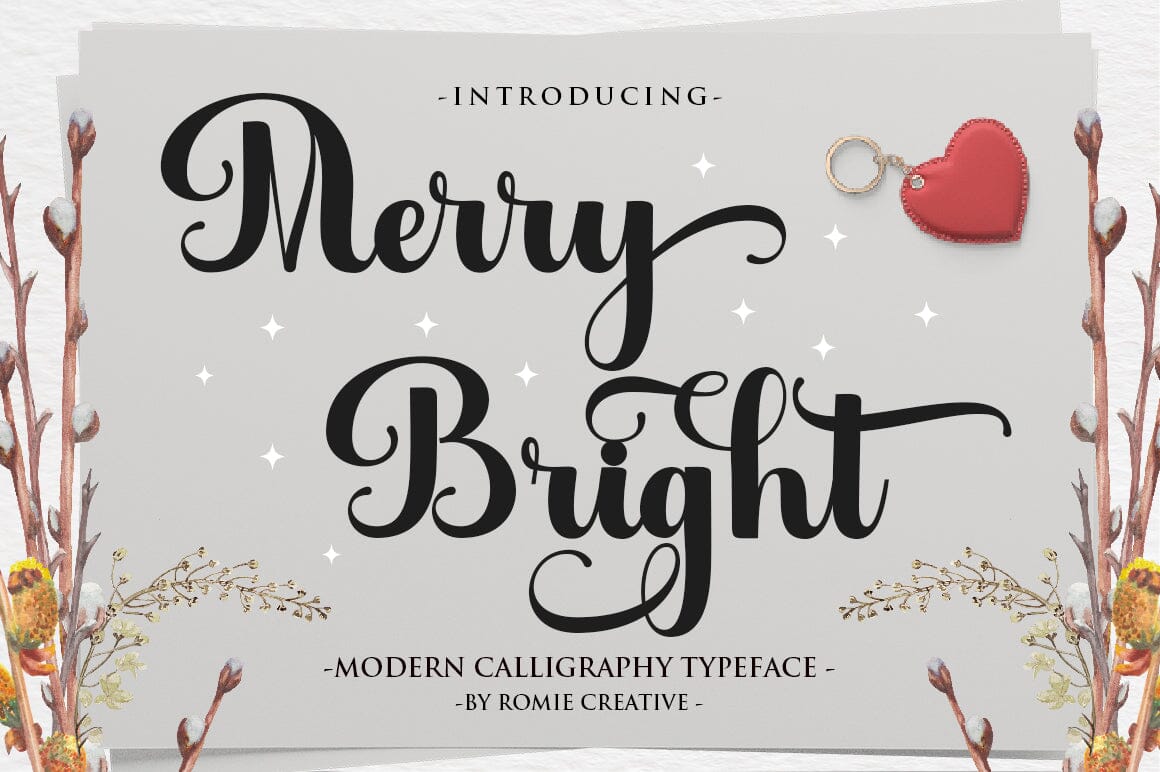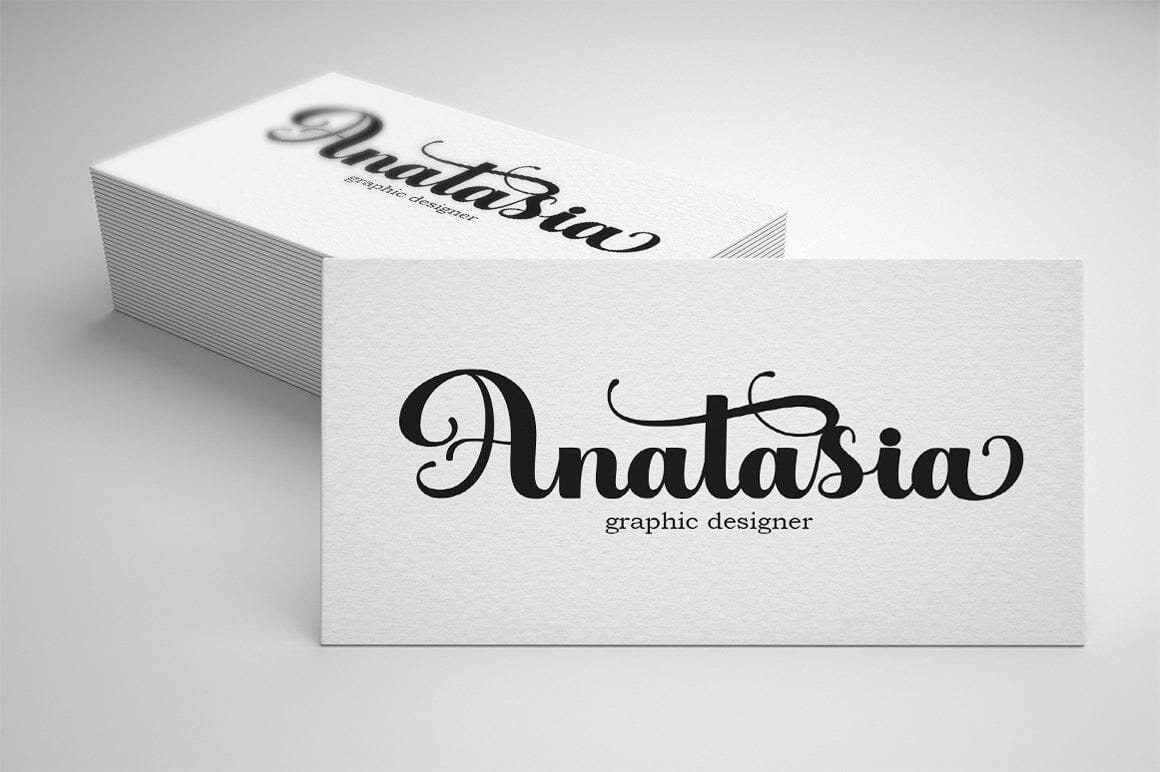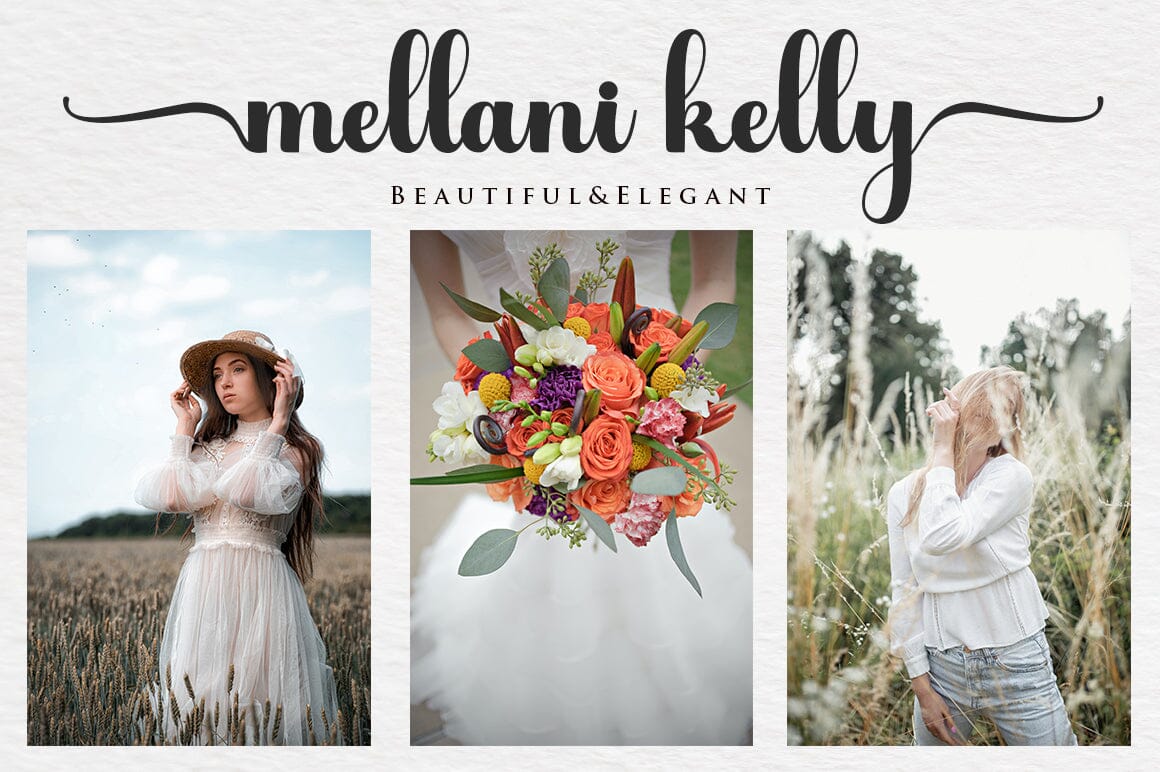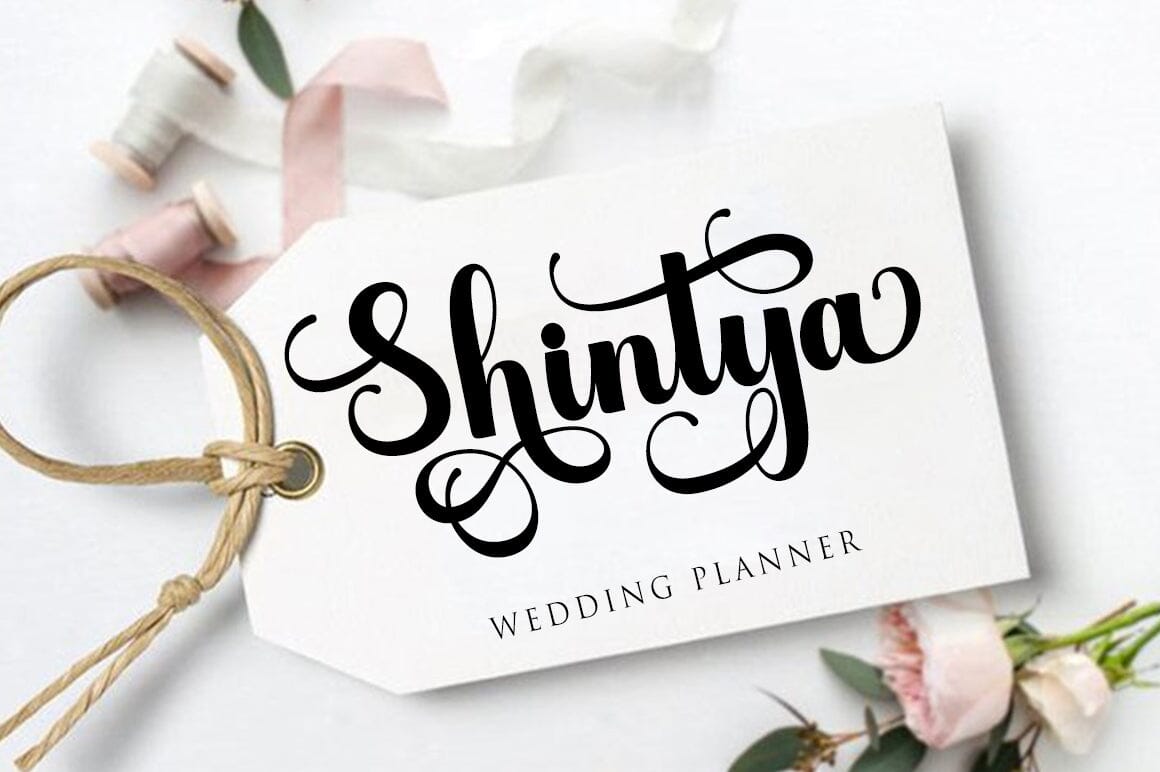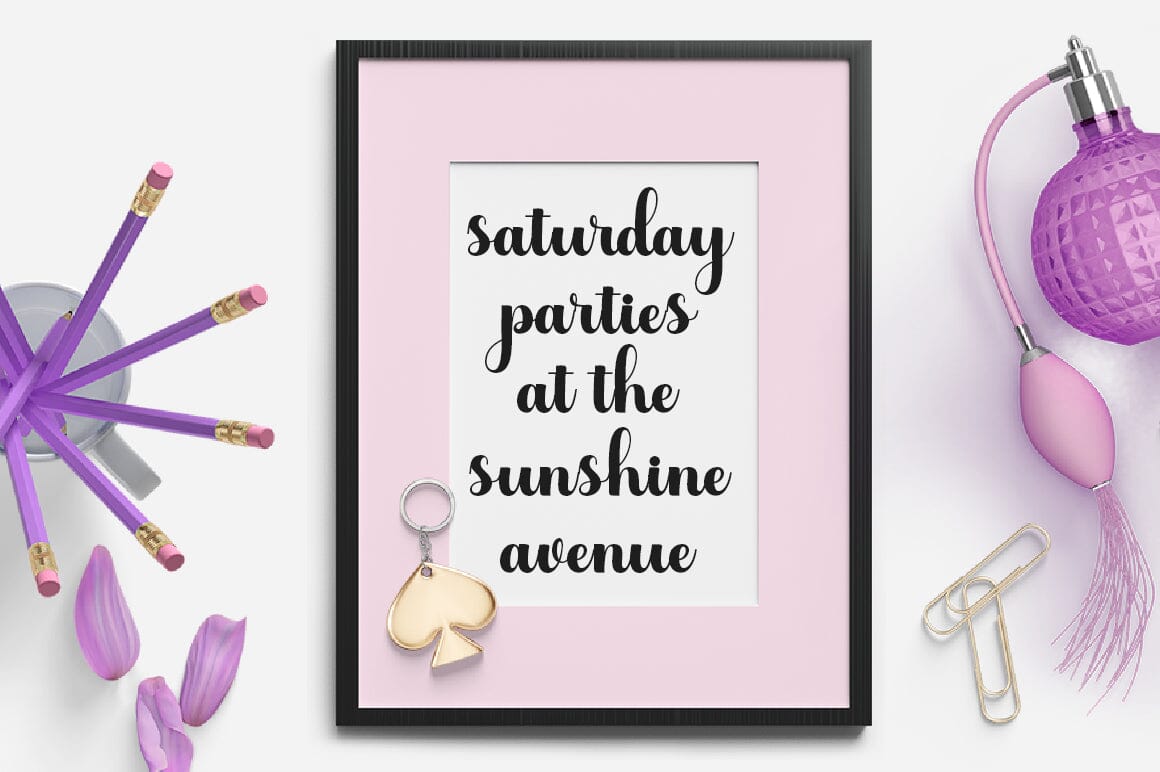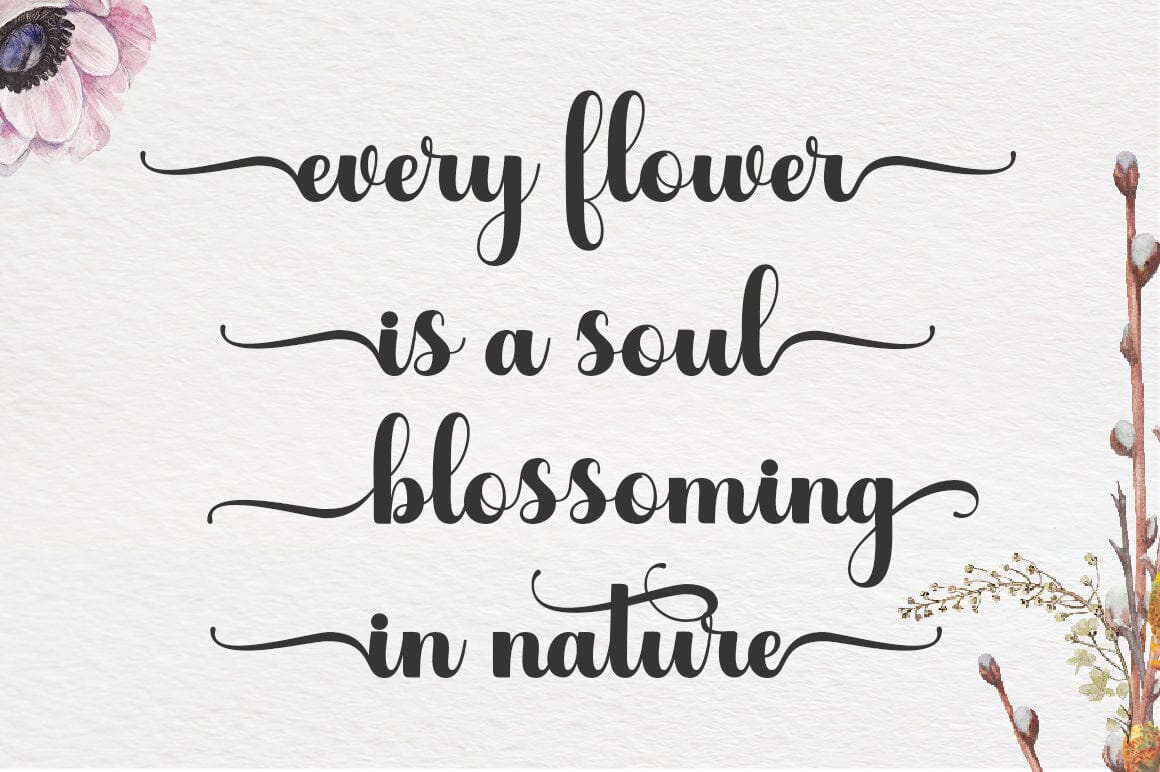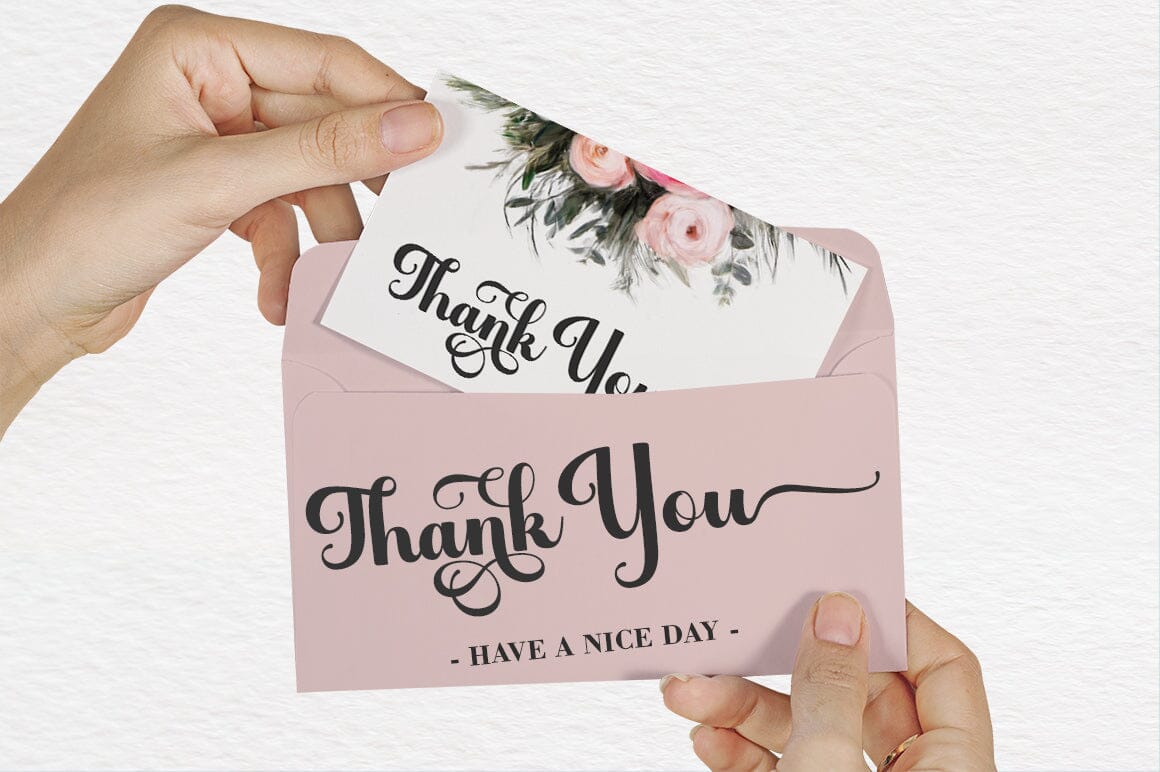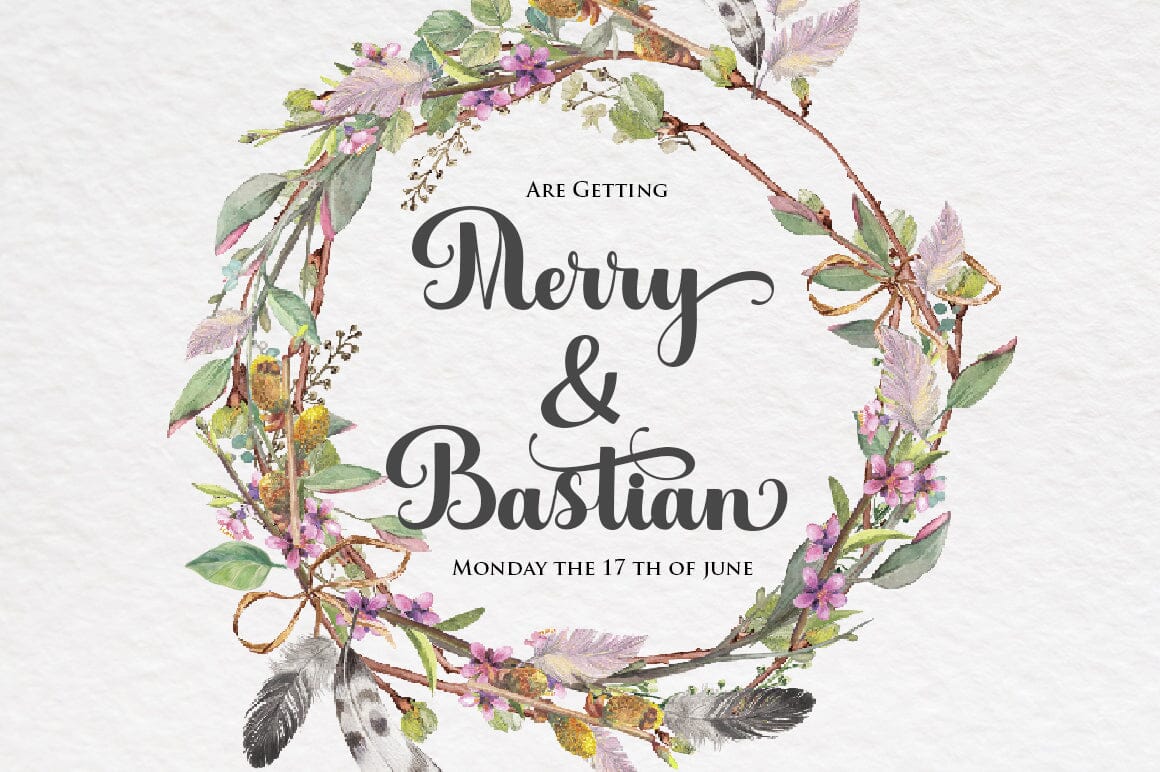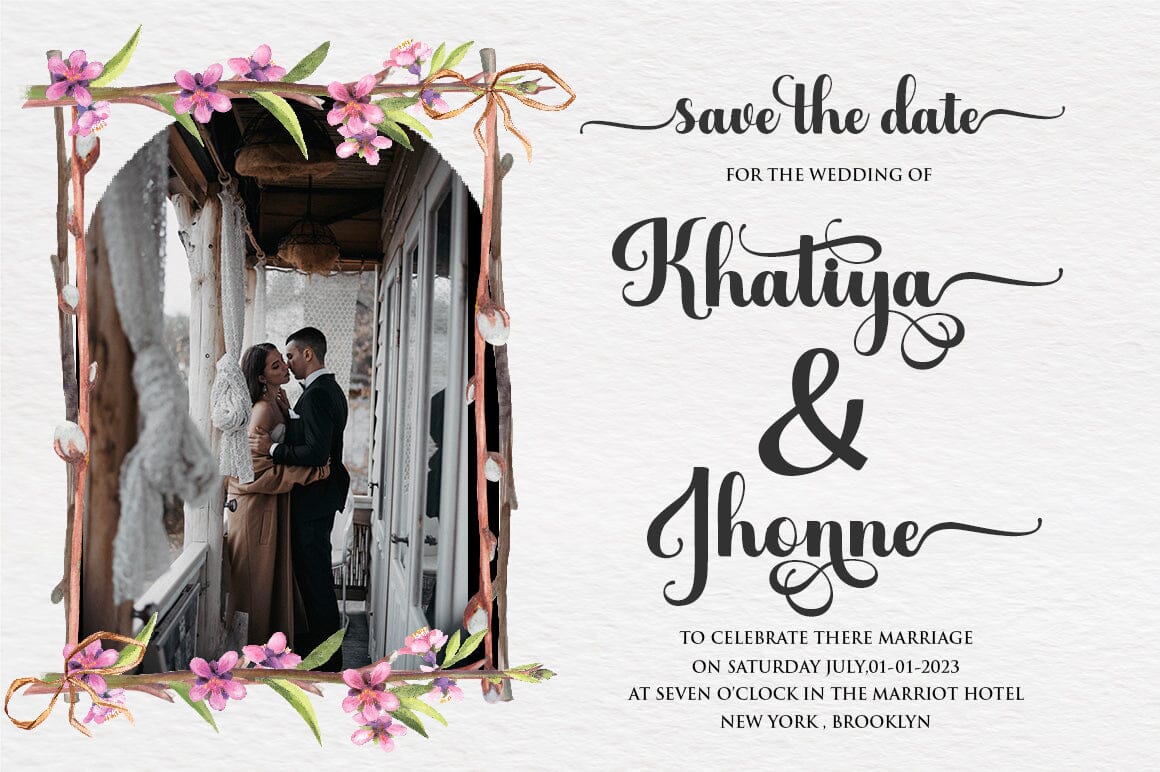
Merry Bright
About Merry Bright
Hello everyone, I would like to introduce my newest font Merry Bright Script is a beautiful modern calligraphy typeface, I hope you will be interested in this font, if you want to use it for your work. This font can be used easily and simply because there are many features in it. contains a full set of lowercase and uppercase letters, a wide variety of punctuation marks, numbers, and multilingual support. font also contains a lot ligatures and contains many alternative Style Sets such as the stroke alternative of the heart to combine with two words, for example: Ashley-Haston. You can see an example in the image above. What is included: . Merry Bright OTF . Merry Bright TTF Merry Bright is perfect for today’s emerging market design, this font has a stylish, trendy, natural and soft font, with this font you can take advantage of any opportunity is a great way to highlight the celebration the best of parties, because this font will be an advocate for the cause such as wedding invitations, branding, parties, graduations, birthdays, gatherings, etc. Thank You, Romie Creative